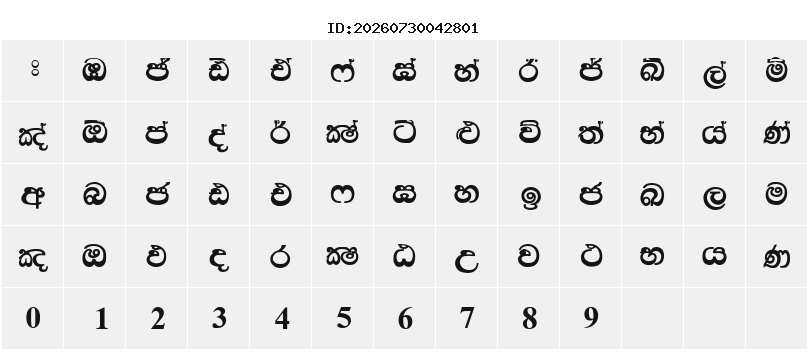
Kandy Supplement Preview
• Font Name: Kandy Supplement
• Full Font Name: Kandy Supplement
About Kandy Supplement.ttf
Kandy Supplement.ttf is a modern, elegant sans-serif font designed for ultimate readability and visual harmony. Perfect for branding, headlines, web design, and print materials.